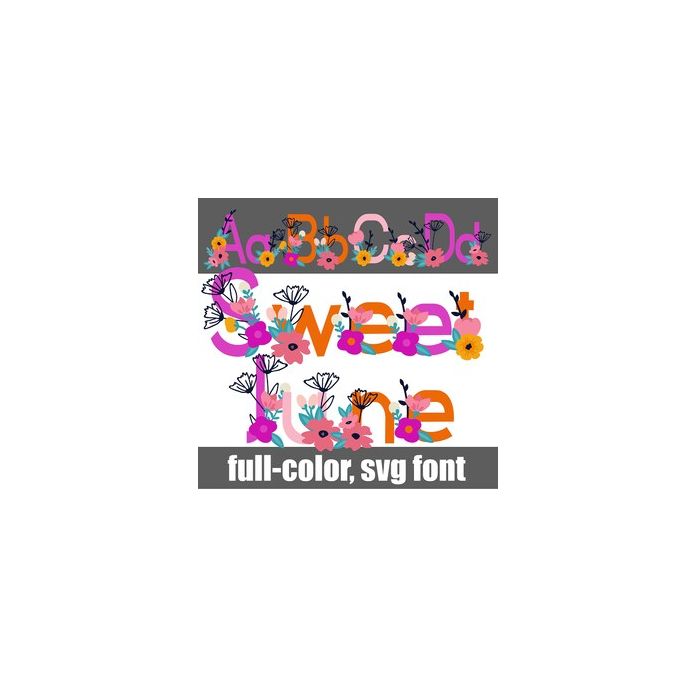
This full-color font features bouquets of flowers on each letter. There is an alt case w/ additional colors you can access through your system or Silhouette's glyph map.